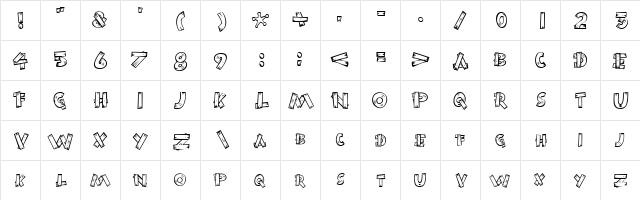
Burnstown Dam Regular
Burnstown Dam Family
Design Context for Burnstown Dam
Burnstown Dam is a composed and adaptable typeface that performs quietly and consistently across a wide range of design contexts.